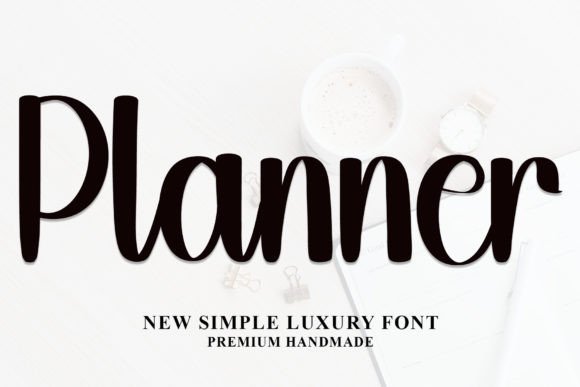
Introducing Planner Font, the epitome of elegance and sophistication in the world of typography. Crafted with meticulous attention to detail by the talented team at Inermedia STUDIO, this script font is the perfect choice for those seeking the best fonts for design.
With its contemporary atmosphere and impeccable form, Planner Font exudes a timeless classic calligraphy charm that will captivate your audience. Its stylish handwritten appearance adds a touch of authenticity and uniqueness to any project, making it stand out from the crowd.
One of the key strengths of Planner Font lies in its balance and variation. Each stroke and curve has been carefully crafted to create a harmonious flow, ensuring that your designs will be visually pleasing and pleasing to the eye. Whether you're designing a logo, creating invitations, or working on a branding project, Planner Font will effortlessly enhance the beauty of your work.
But what truly sets Planner Font apart is its ability to evoke emotions. With every stroke, it whispers a story, evoking a sense of nostalgia, romance, and creativity. It's more than just a font; it's a powerful tool that allows you to express your ideas and emotions in a visually compelling way.